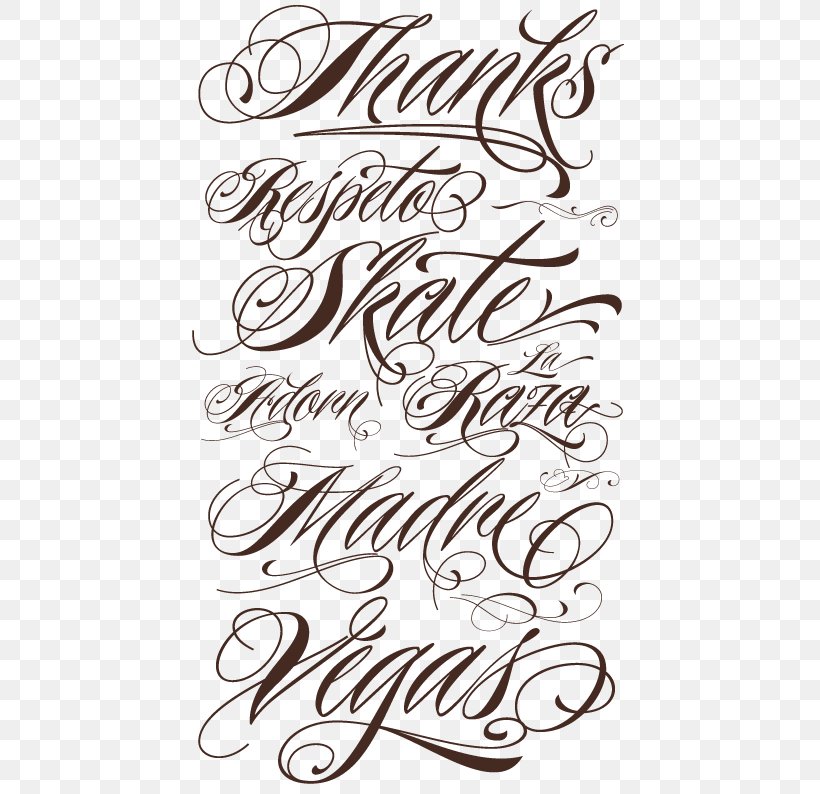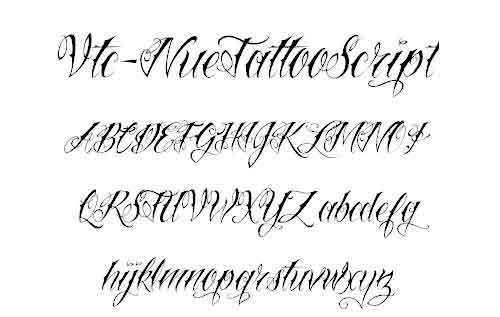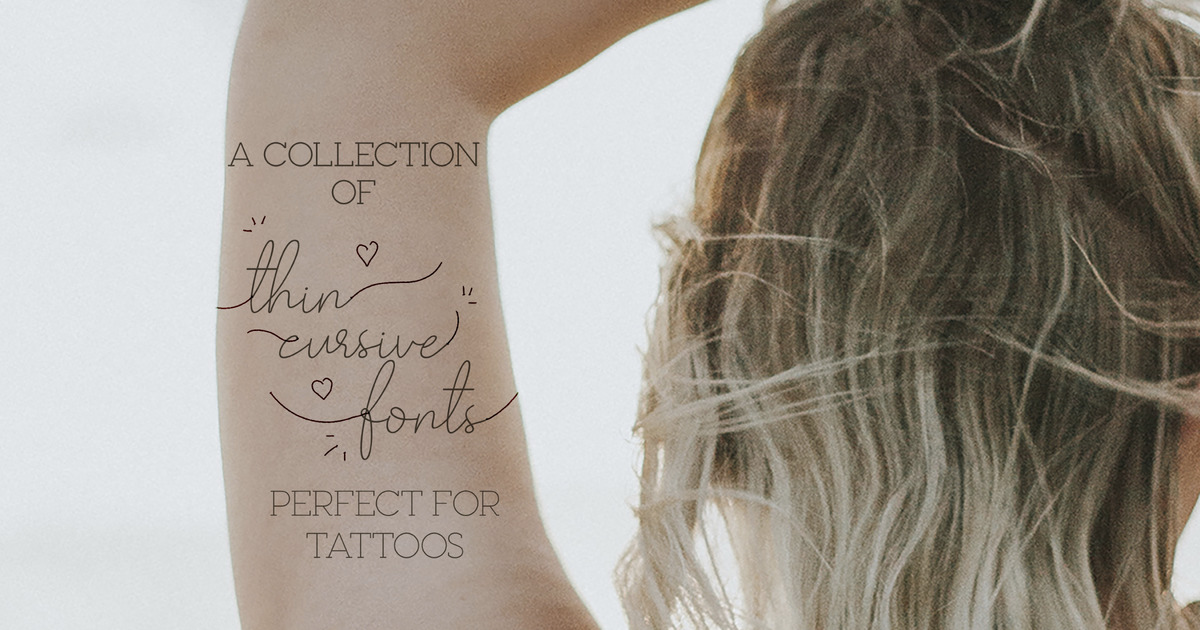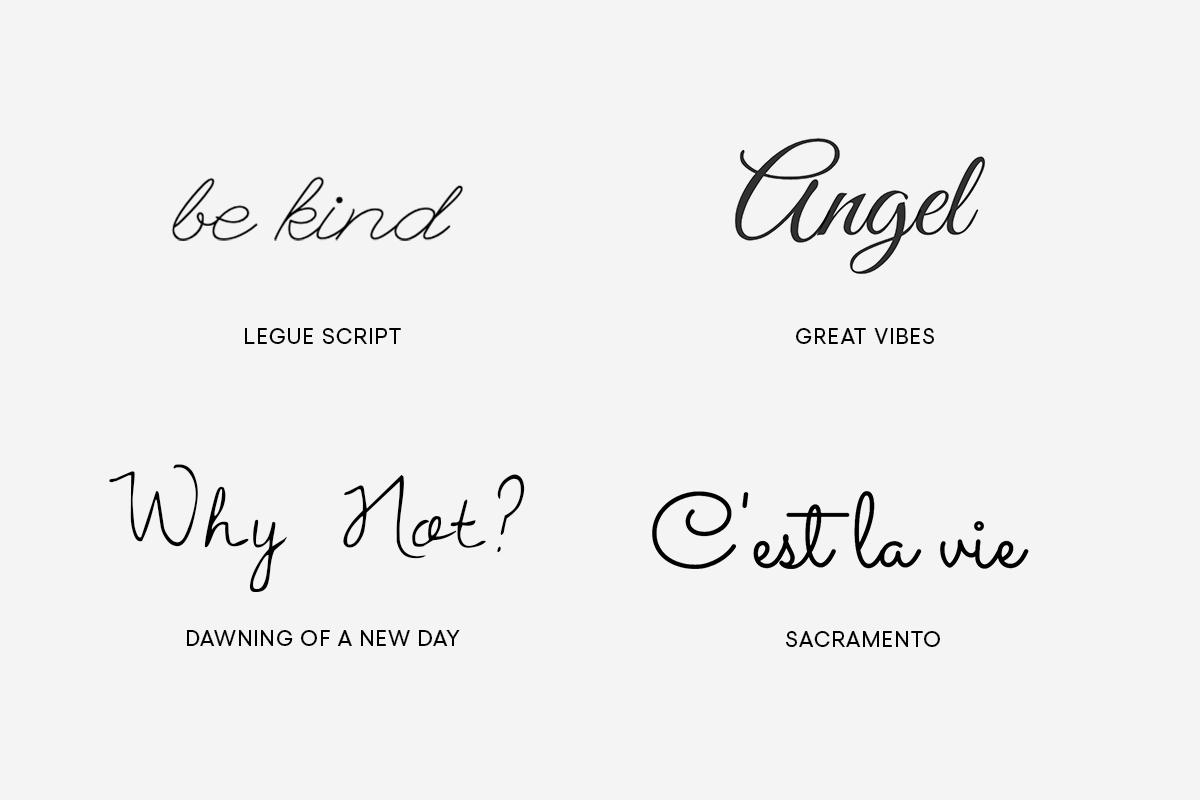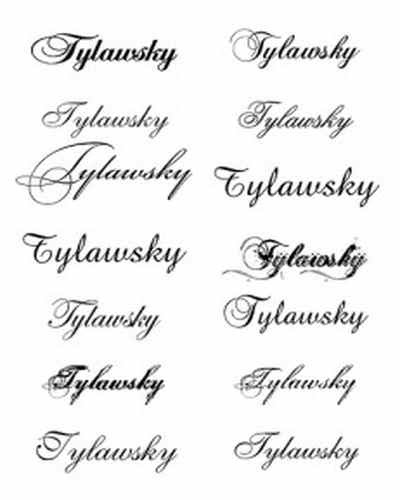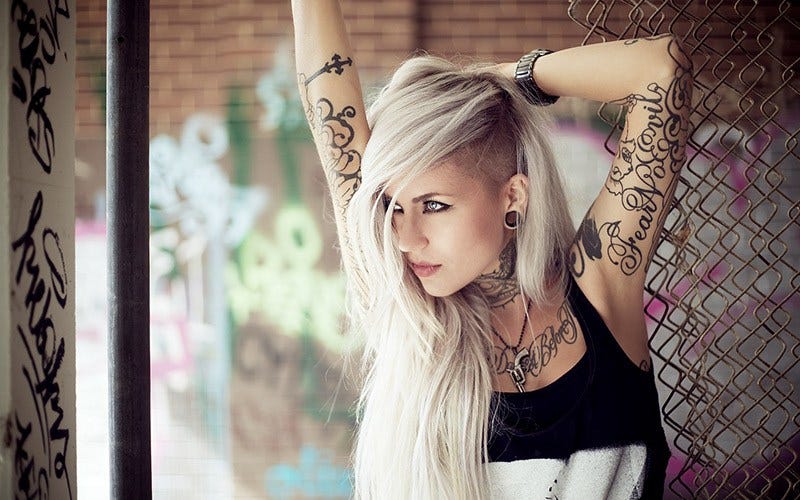
Feminine fonts tend to be more delicate and pretty perfect for letters invitations signs and many other projects. Somebody That I Used To Know.
Calligraphy tattoo fonts for women. May 3 2017 - Explore Tattoomazes board Letter Tattoos For Women followed by 9853 people on Pinterest. Regular lines with a few graceful curves create a sophisticated feel in the text. Other popular fonts used in tattoos include.
Kotta One Font Style for a Name Tattoo. If you are getting a tattoo yourself that qualifies for personal-use and any font would be free to use. Calligraphy Decorative Gothic Script Tattoo.
25 Free and Premium Arabic Fonts. Often roses are used as inspiration to create tattoo fonts with a feminine feel. The word calligraphy itself stands for handwritten lettering and is a combination of written text and artwork rolled into one.
When such a tattoo font is used to design a text on your skin the effect is naturally elegant. La Belle Aurore Font Style for a Name Tattoo. Tattoo Girl by Otto Maurer.
Page 1 of 16. One font we like is Tattoo Girl designed by Otto Maurer as shown in the image below. Calligraphy fonts for tattoos are one of the most popular choices for text in the tattoo world.
Krona One Font Style for a Name Tattoo. The slanted style of letters also gives a pretty and delicate look to tattoo fonts. Find and download the right font for your next tattoo.
League Script Font Style for a Name Tattoo. Dec 9 2016 - tattoo fonts for women - Google Search More. Celtic fonts graffiti fonts blade fonts etc.
Little Lord Font Leroy - Nicks Fonts. Kavoon Font Style for a Name Tattoo. Lettering styles include tribal traditional sailor blackletter fancy cursive script etc.
160 Free Tattoo Fonts 1001 Fonts. Old English fonts are also used a lot in tattoo designs because they have a distinguished look and evoke some medieval atmosphere. These fonts convey a sense of femininity having an appearance typically associated with women.